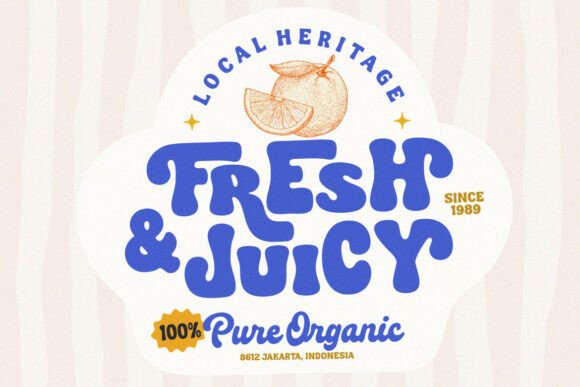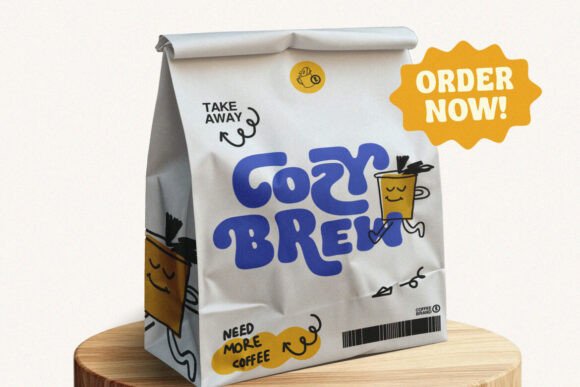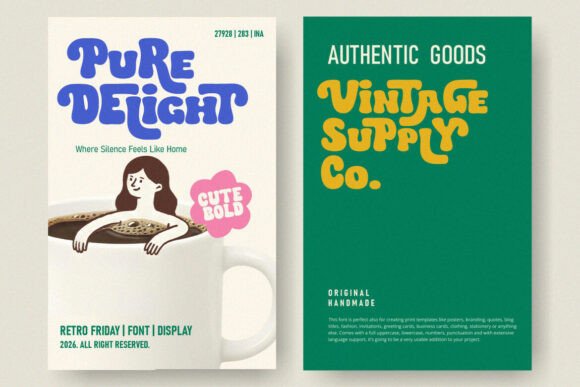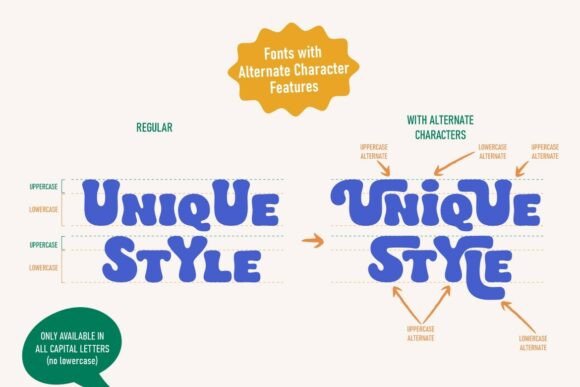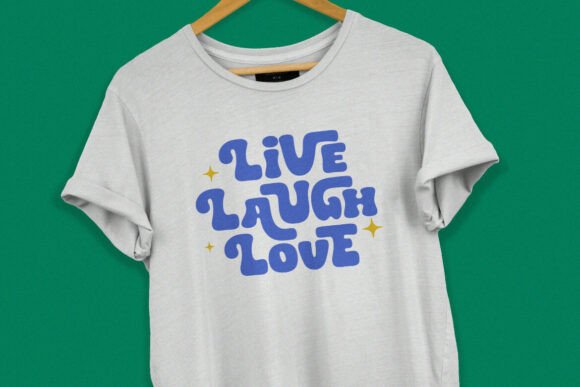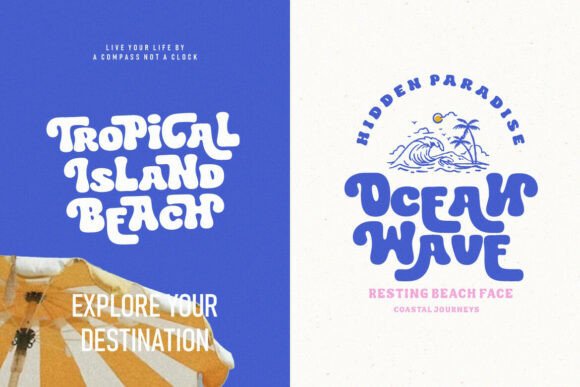
Introduction to Retro Friday Font Font
Fonts play a crucial role in design, and the Retro Friday Font font is a typeface that brings both character and versatility to any project. Whether you’re working on a branding project, a website, or a print design, the Retro Friday Font font offers a unique style that can elevate your work.
Retro Friday font is a uniquely crafted retro groovy typeface designed to bring bold character and nostalgic charm to your designs.
Its playful curves and vintage-inspired shapes capture the spirit of classic retro aesthetics while still feeling fresh and distinctive Perfect for logos, branding, posters, apparel designs, and other creative projects, this font helps your work stand out with a strong and memorable retro personality.
Key Features of Retro Friday Font Font
Why Choose Retro Friday Font Font?
The Retro Friday Font font is more than just a typeface – it’s a design tool that helps you communicate your message with style and clarity. Its unique character set and versatile design make it suitable for a wide range of applications, from elegant invitations to bold headlines.
With its carefully crafted letterforms and balanced proportions, the Retro Friday Font font ensures readability and visual appeal across all mediums.
What makes Retro Friday Font font special?
The Retro Friday Font font stands out with its unique design, exceptional readability, and versatility across various design applications.